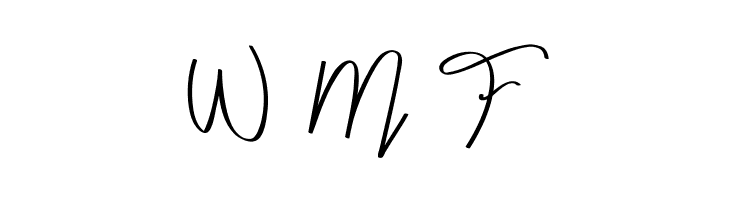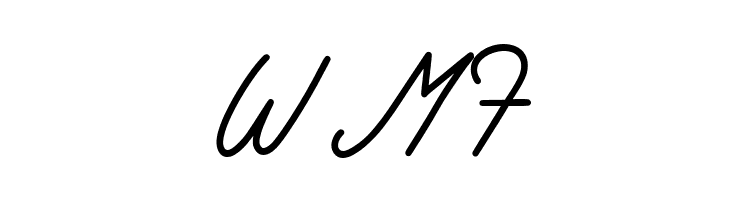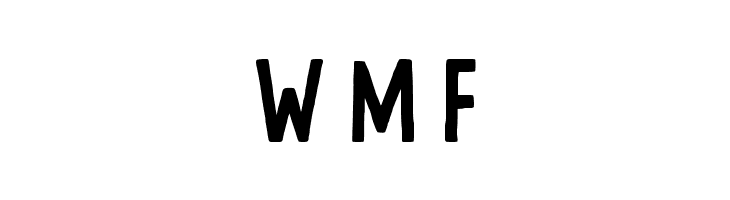
A bold, expressive script font with a lively, handwritten style.
A bold, hand-drawn font with a playful and whimsical style.
A bold, hand-drawn font with a playful and energetic style.
A playful, bold font with a hand-drawn, whimsical style.
A playful, balloon-like font with bold, rounded characters.
A playful, bubble-like font with bold, rounded characters.
A playful, bold handwritten font with rounded edges and varying stroke widths.
A graceful and elegant script font with flowing, cursive strokes.
A playful handwritten font with smooth, rounded strokes and a lively appearance.
A cursive, elegant script font with flowing loops and swashes.
A bold, playful handwritten font with a smooth, flowing style.
A playful, hand-drawn font with bold, rounded characters and a whimsical style.
A playful, handwritten font with rounded edges and a casual, friendly style.
A playful and elegant handwritten font with fluid, cursive letterforms.
A modern, geometric font with a futuristic and sleek design.
Playful handwritten font with rounded edges.
A bold, playful handwritten font with thick strokes and rounded edges.
A playful and elegant script font with flowing cursive letters.
A playful and elegant script font with smooth, flowing curves.
Bold, playful handwritten font with brush-like strokes.
A bold, playful font with exaggerated curves and dynamic styling.
A dynamic and flowing script font with elegant, cursive letterforms.
A graceful and fluid script font with elegant cursive styling.
An elegant, flowing script font with classic and modern elements.
A playful, hand-drawn font with whimsical and bold letterforms.
A bold, brush-style script font with dynamic, flowing letterforms.
A bold, classic serif font with strong contrast and sharp serifs.
A bold, handwritten font with a playful and dynamic style.
A playful, handwritten font with irregular strokes and a casual, creative vibe.
A playful, informal handwritten font with irregular, slanted strokes.
A playful, casual handwritten font with smooth, flowing lines.
A flowing, elegant script font with smooth, cursive letterforms and artistic flourishes.